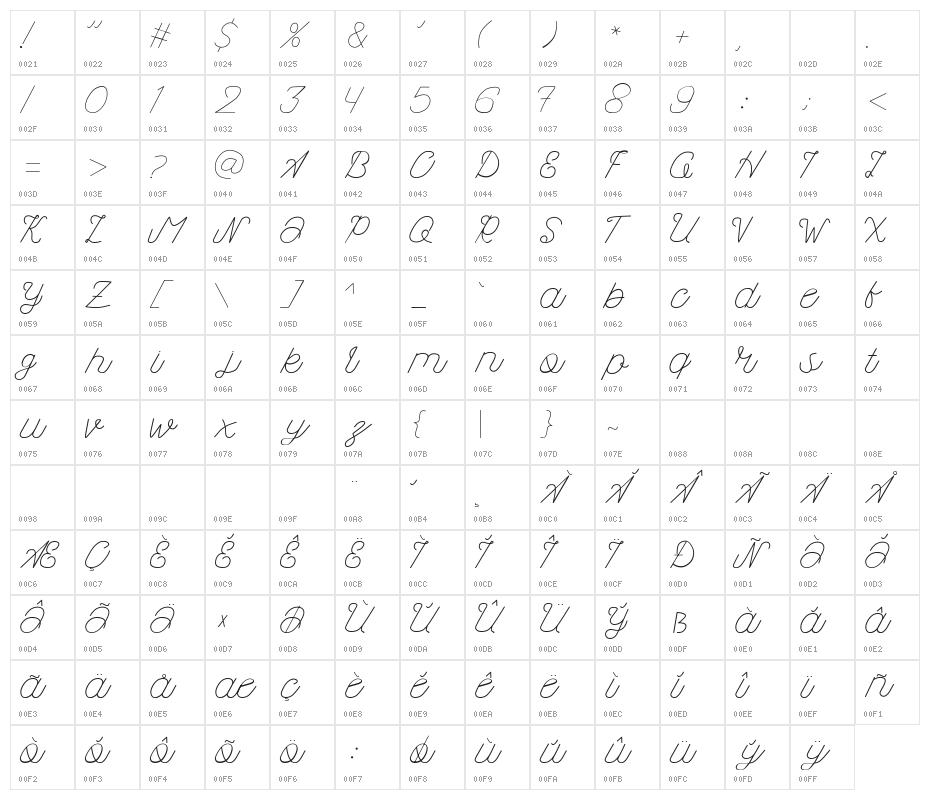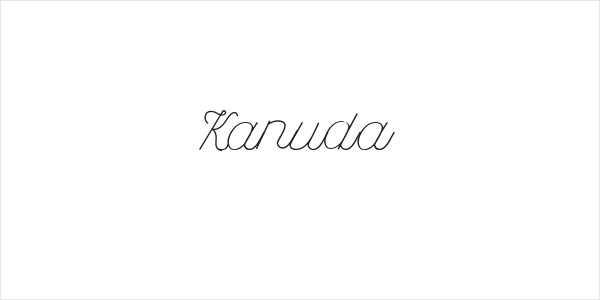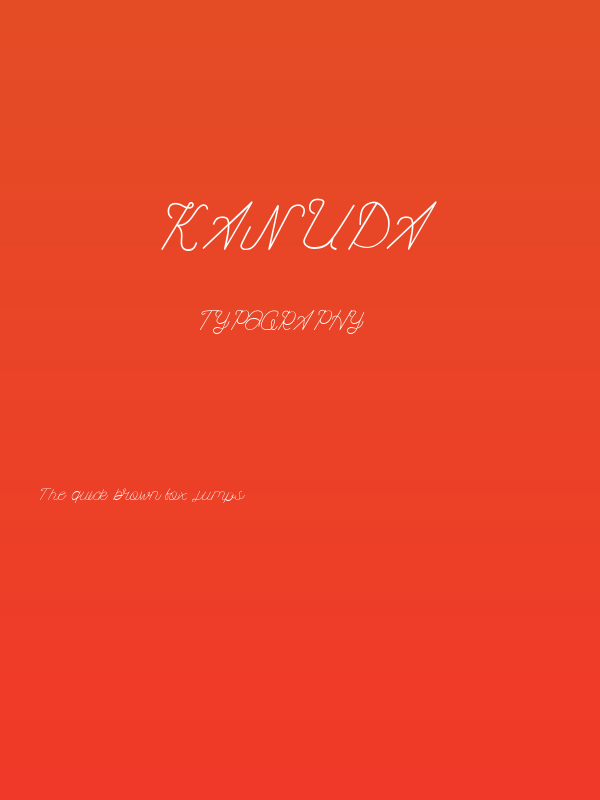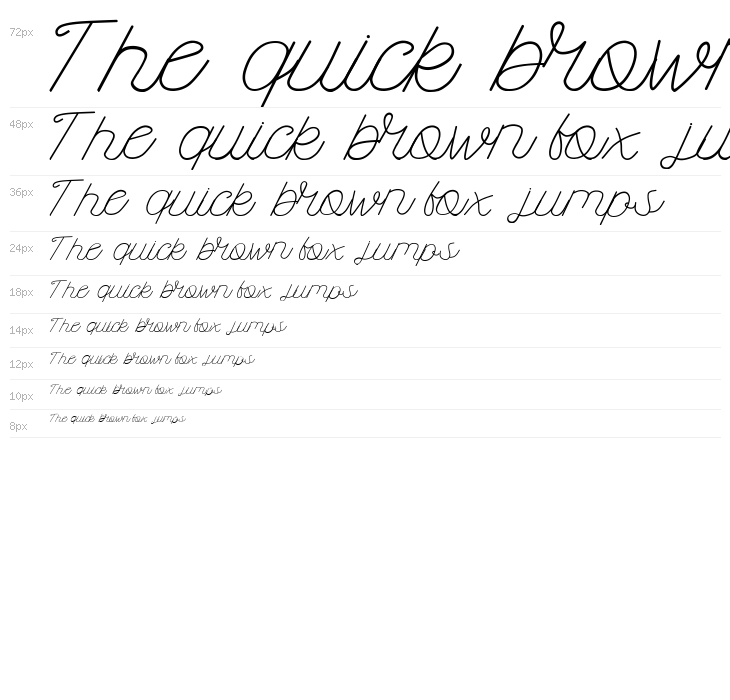
Kanuda Font
Kanuda Description
This font features a delicate and flowing script style, characterized by its elegant and continuous strokes that mimic the fluidity of handwriting. Each letter is connected, creating a seamless and harmonious appearance. The uppercase letters are slightly more ornate, while the lowercase letters maintain a consistent and smooth flow. The numerals and special characters are designed to match the overall cursive aesthetic, ensuring a cohesive look across all text elements. The thin lines and gentle curves give it a sophisticated and graceful feel, making it suitable for formal and decorative purposes.
KANUDA UPPERCASE
KANUDA LOWERCASE
KANUDA OTHER CHARS